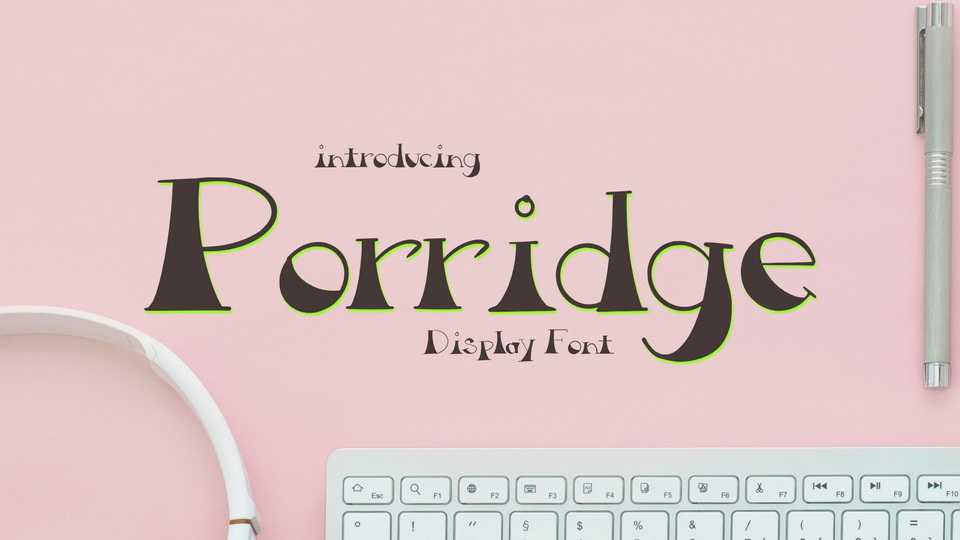
Download Porridge font, a high contrast hand drawn display typeface with a fun playful look. Porridge font is perfect for retro designs and crafts, posters and packaging to add a little hippie charm.